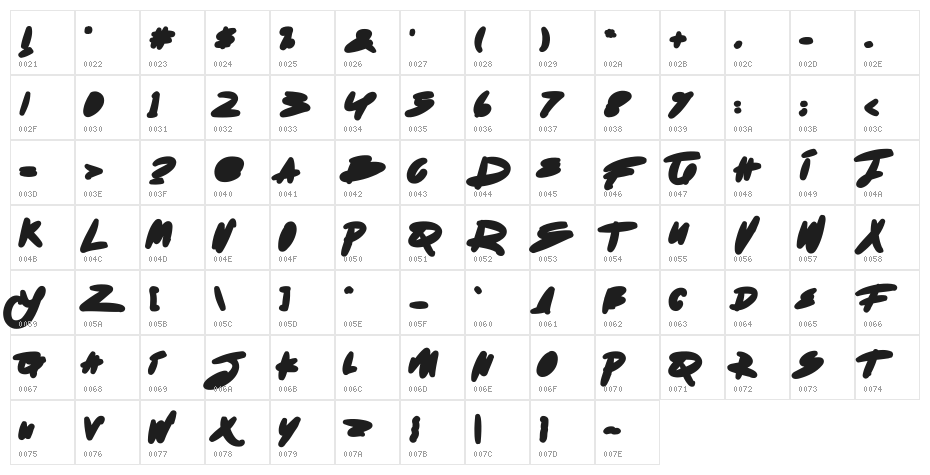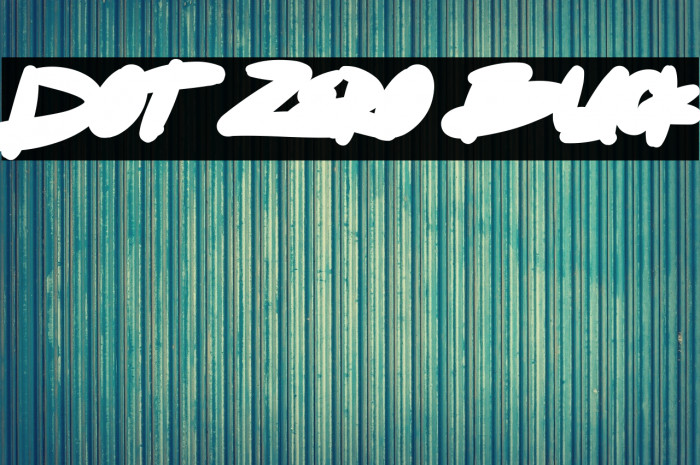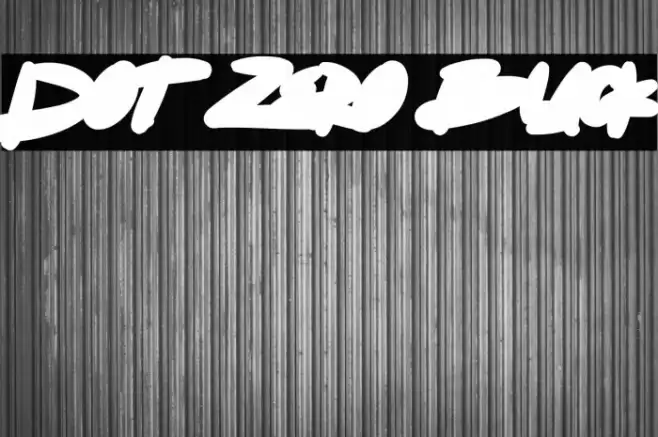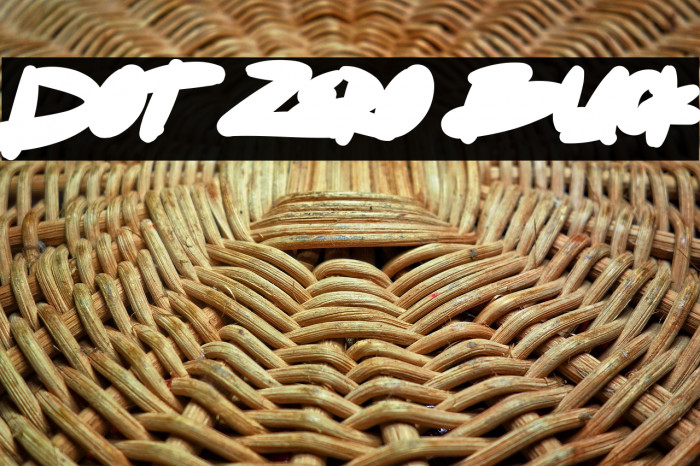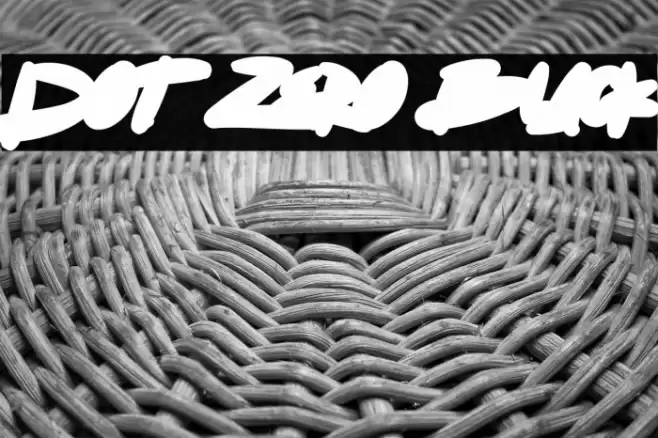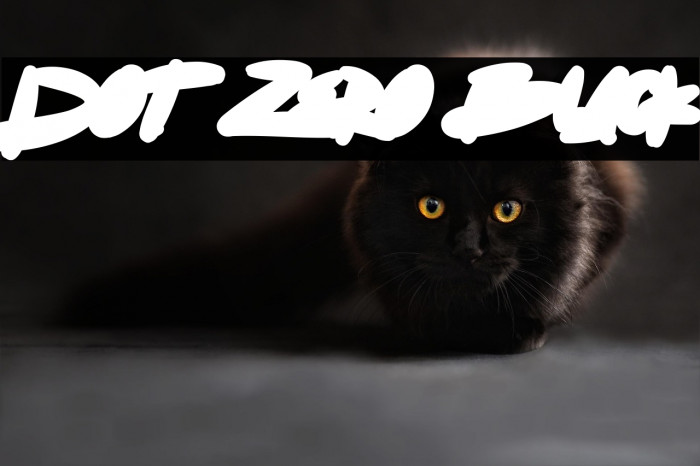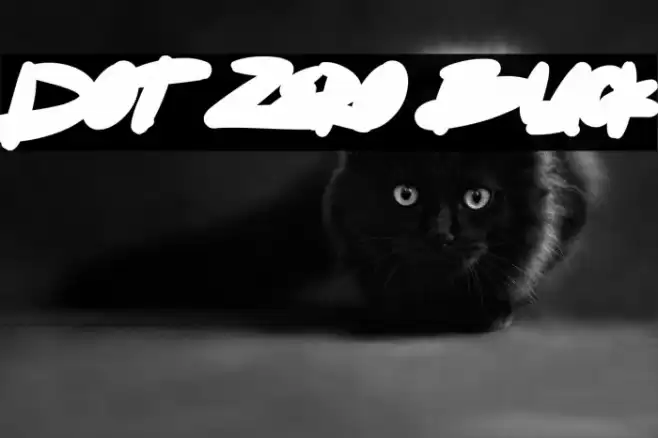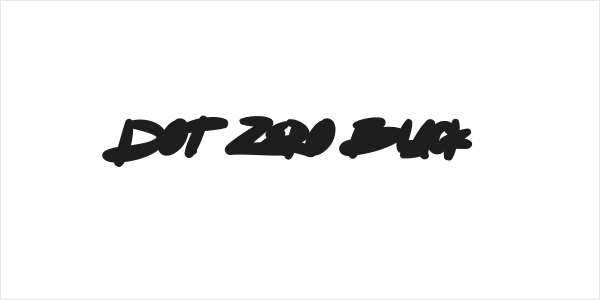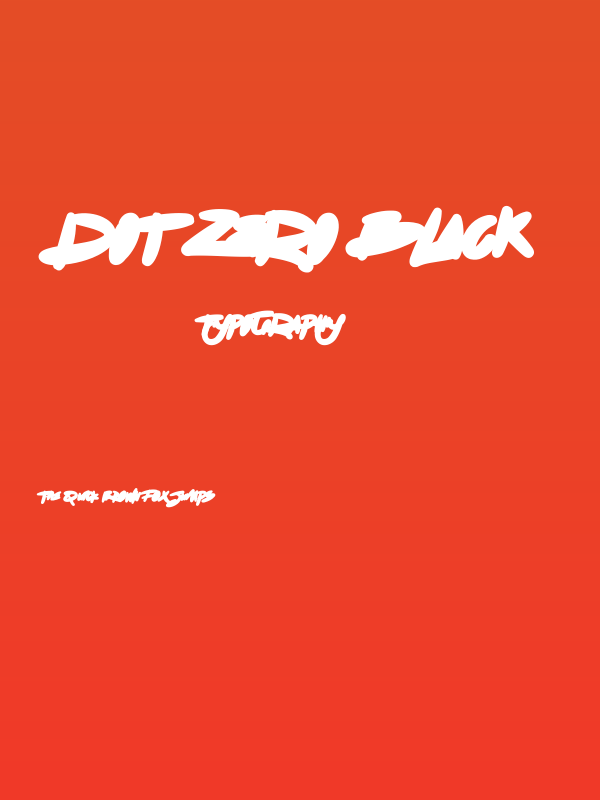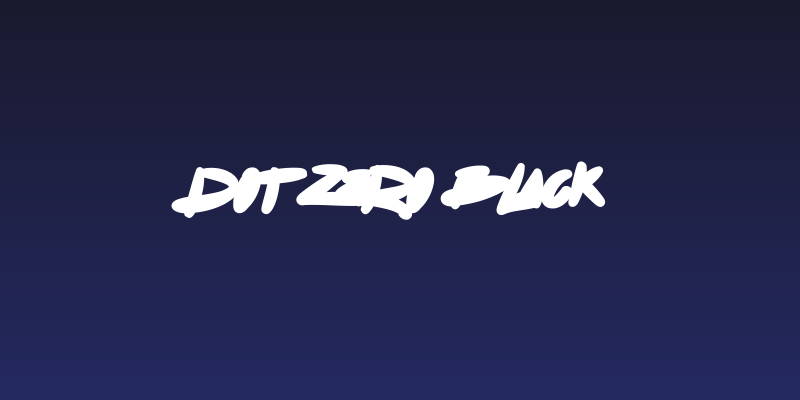
Dot Zero Black Font
Dot Zero Black Description
This bold and expressive font features a highly dynamic and energetic style, characterized by its thick, brush-like strokes that convey a sense of movement and spontaneity. The letters are closely spaced, creating a compact and cohesive appearance. The uppercase and lowercase letters maintain a consistent flow, while the numbers and special characters integrate seamlessly into the overall design. The font's high contrast in stroke thickness adds to its dramatic and impactful presence, making it ideal for projects that require a strong visual statement.
| Proposed Projects | This font is perfect for projects that need a bold and artistic touch, such as posters, album covers, graffiti art, and branding for creative industries. |